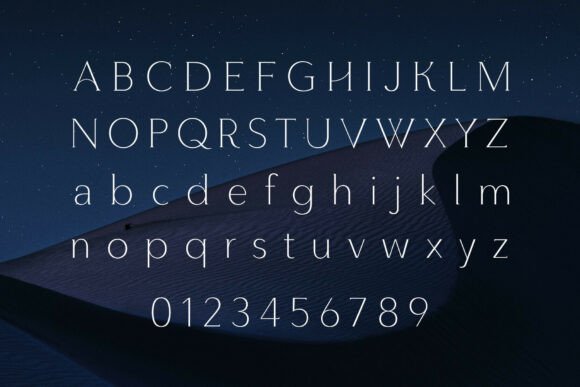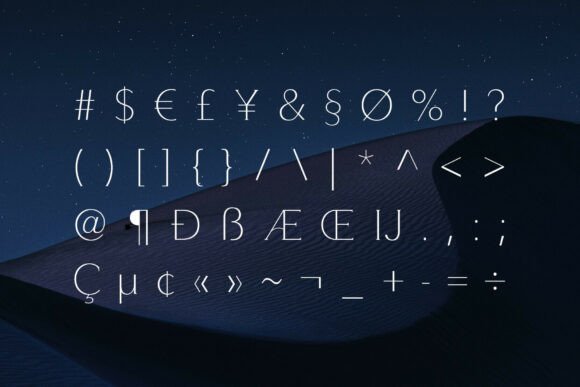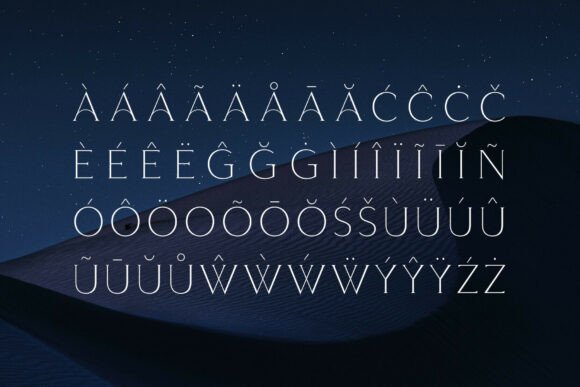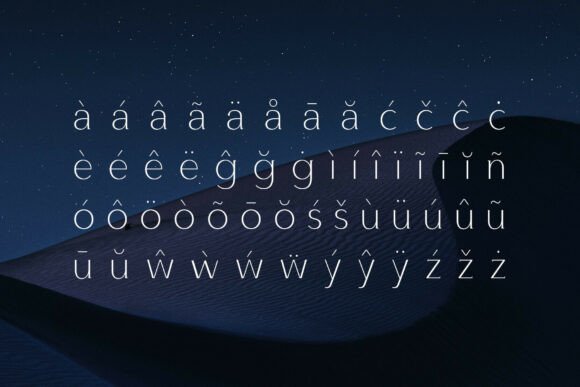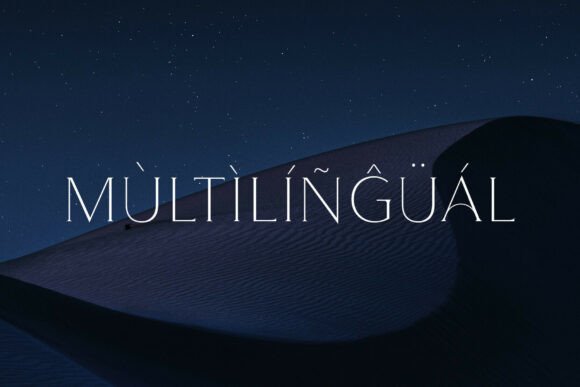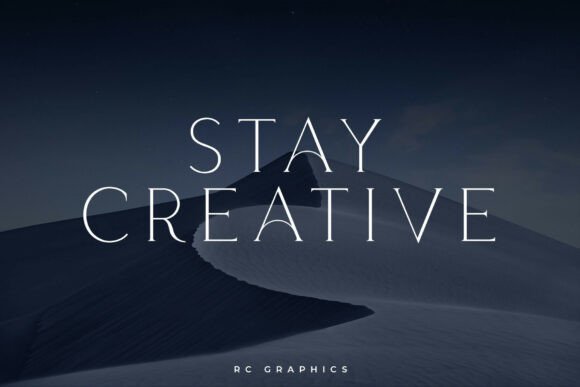
Introduction to Kanovi Font
Have you ever stared at a blank page, waiting for the perfect font to spark your creativity? For designers, finding that elusive combination of style and substance can be a daunting task. But what if you could unlock a world of elegance and sophistication with a single click? Welcome to the world of Kanovi Font, a modern and refined typeface designed to elevate your creative projects to new heights.
As a valuable resource for designers, Kanovi Font offers a high-quality design experience that’s both minimal and expressive. With its transparent background and sleek, geometric ligatures, this font is perfect for those who want to make a statement without shouting. Whether you’re working on a high-end cosmetic branding project or a sleek architectural portfolio, Kanovi Font is the perfect choice to transform simple text into a curated work of art.
Key Features of Kanovi Font
- High-quality design resource with a unique, modern aesthetic, perfect for creative projects.
- Designed to be highly legible, even at small font sizes, making it perfect for use in digital and print designs.
Honest Review: Kanovi Font
I recently stumbled upon the Kanovi Font, and I must say it’s a fantastic addition to my design resource library. One of the standout features is its high quality and sleek design, making it perfect for any creative project.
- ✨ Transparent background option for seamless integration
- ⚠️ Limited font sizes and styles available
- ⚠️ Not as extensive a character set as I would have liked
Overall, I’m impressed with the Kanovi Font and would definitely recommend it to designers looking for a high-quality, free design resource. While it may not offer as much flexibility as some other fonts, its sleek design and transparent background option make it a great choice for many creative projects.
Tips for Getting the Most Out of Kanovi Font
Use Kanovi Font for creative projects that require a unique and stylish design. Experiment with different font sizes, colors, and combinations to create a visually appealing design. You can also use Kanovi Font as a design resource for free download, perfect for personal or commercial use.
Kanovi Font is commonly used for social media graphics, presentations, logos, and illustrations. It’s also a great design resource for creative projects, such as infographics, flyers, and brochures. With its high-quality and transparent background, Kanovi Font is perfect for designers who want to create professional-looking designs with ease.
Is the Kanovi Font suitable for high-resolution designs?
Yes, the Kanovi Font is designed to be high-quality and scalable, making it suitable for use in high-resolution designs, such as print materials, web graphics, and digital displays. The font is available in a range of weights and styles, allowing you to choose the perfect version for your creative project.